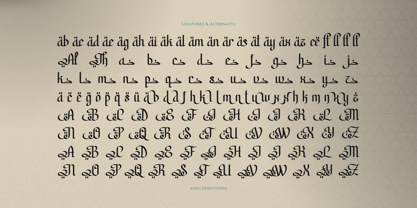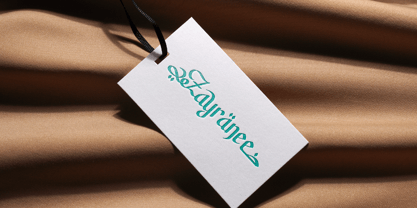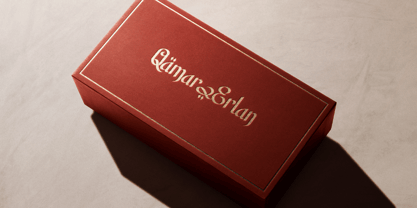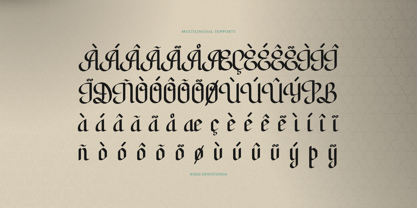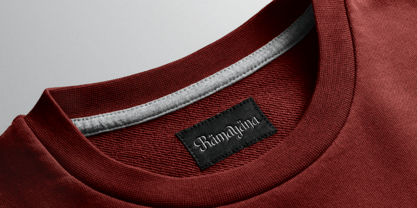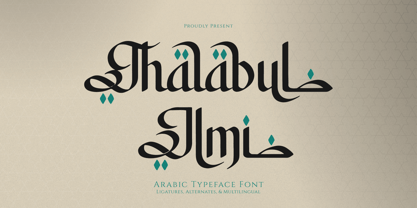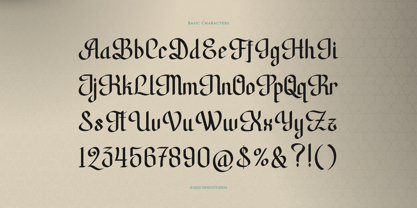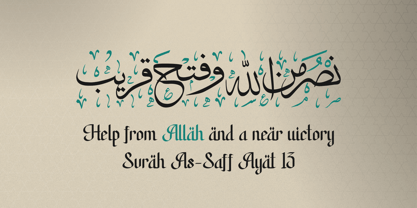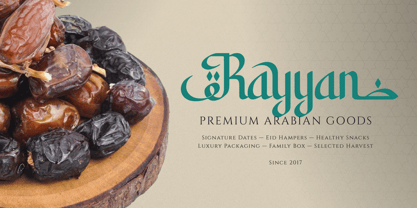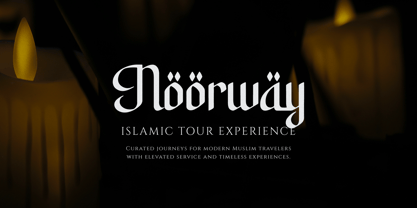
Thalabul Ilmi
von Denustudio
Die Schriftfamilie Thalabul Ilmi wurde von Dede Nugraha entworfen und von Denustudio veröffentlicht. Thalabul Ilmi enthält 1 Stile. Mehr über diese Familie
Thalabul Ilmi | Arabic Typeface, from Denustudios, suitable for any projects such as: logos, branding projects, homeware designs, product packaging, mugs, quotes, posters, shopping bags, t-shirts, book covers, name card, invitation cards, greeting cards, label, photography, watermark, special events, and all your other lovely projects that need Arabic a taste.
Designer: Dede Nugraha
Foundry: Denustudio